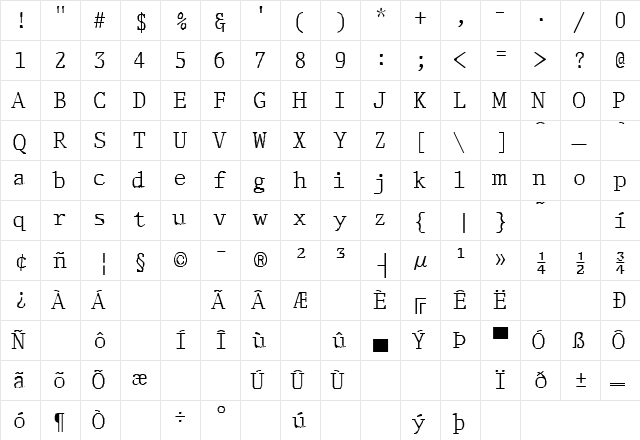
ThirdCopySSK Regular
Design Context for ThirdCopySSK Typeface
ThirdCopySSK takes a measured approach to typography — its balanced proportions and neutral character make it a reliable workhorse for both digital and print work.